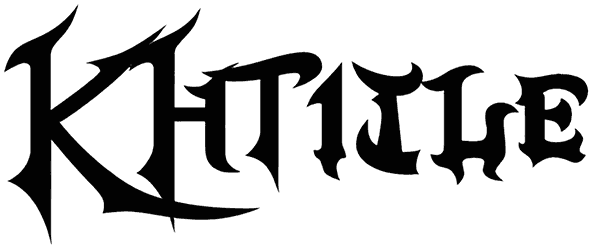
KHTitle Font
KHTitle is a perfect blend of elegance and classism that its sophisticated flow creates a feeling of vintage, eerie, grunge, or traditional.
This all-caps epic font can give you a hand to create timeless graphic content including historical movie posters, strategic video game brochures, social media posts, flyers, or book illustrations. Just in case you need another font in the same category, we strongly recommend you to visit our archive.
In comparison to similar fonts found online, characters in Re:Collection are recreated more faithfully, directly from the games whenever possible. They also have improved letter spacing (especially when setting spacing to metric) and have support for various languages including English, French, German, Italian, Spanish, Turkish, Polish, Norwegian, Swedish, Russian, Portuguese, Danish, Indonesian and many more latin-based languages.